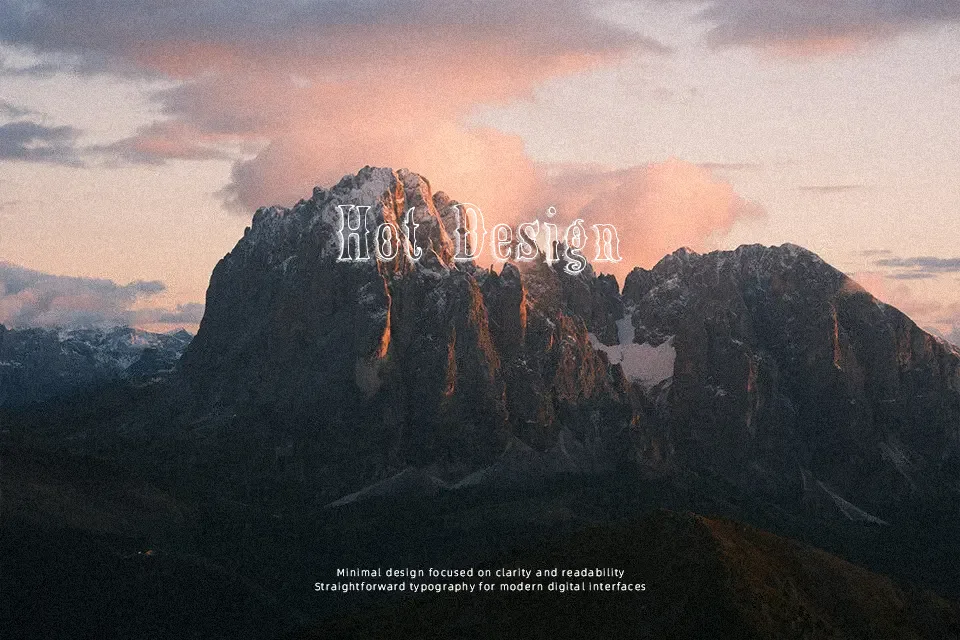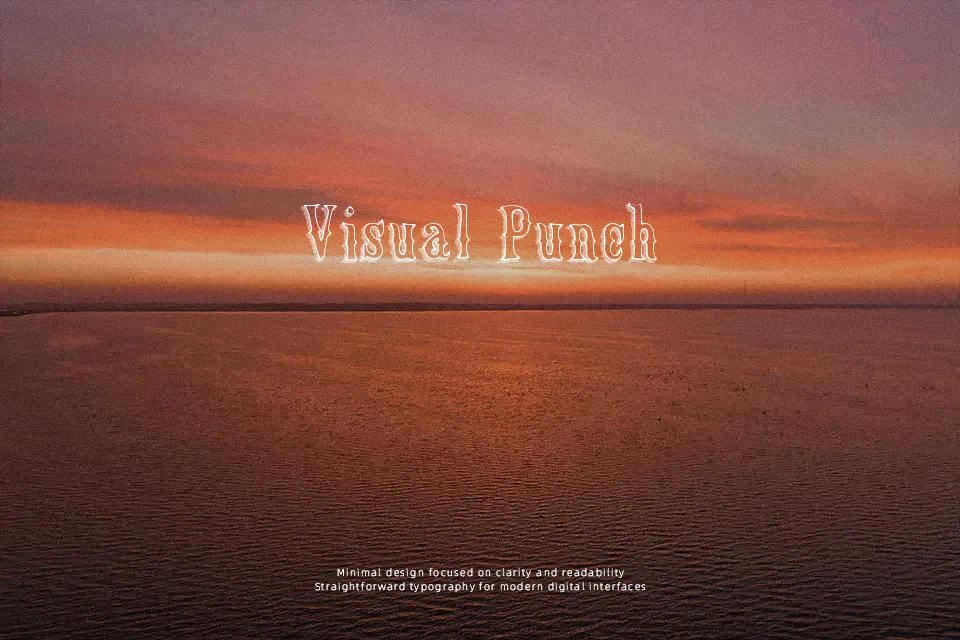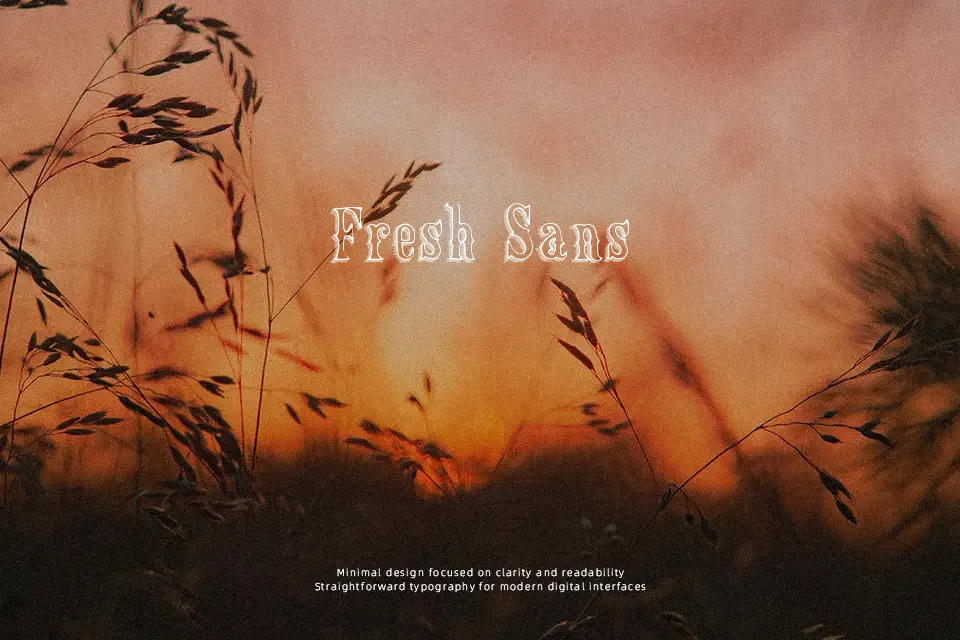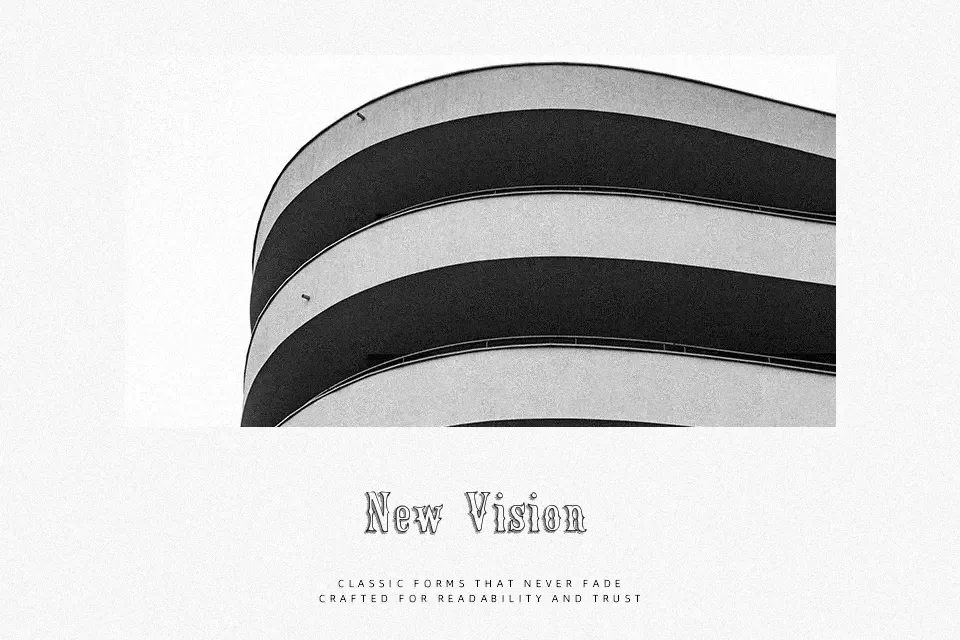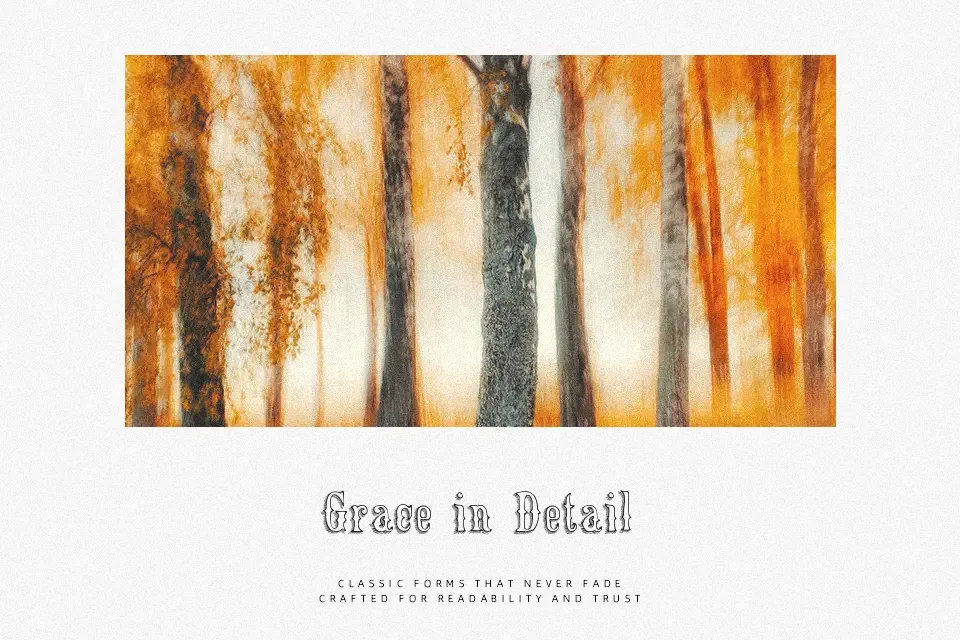
Olde Barnsby Font
Olde Barnsby Font uses heavy decorative forms, pronounced serif details, and compact proportions to create a distinctly Western display look. The strokes appear bold and structured, while the varied contours give capitals a theatrical, sign-painted character. Spacing works best in short lines, where the letterforms can retain their individual presence without crowding the layout. It suits large titles, labels, and themed graphics more naturally than conventional text settings. The strong silhouette helps headlines remain noticeable, but the decorative shaping becomes less comfortable in small sizes or extended reading.
Best For: western poster headlines,ranch signage,vintage product labels,themed event graphics
Perfect for advertising, headline, and logo, with a bold and decorative style.